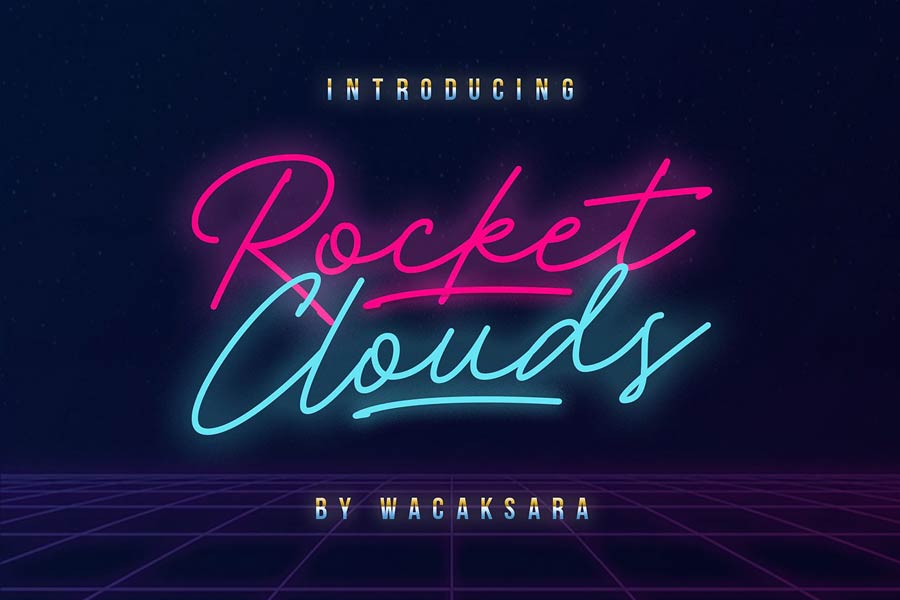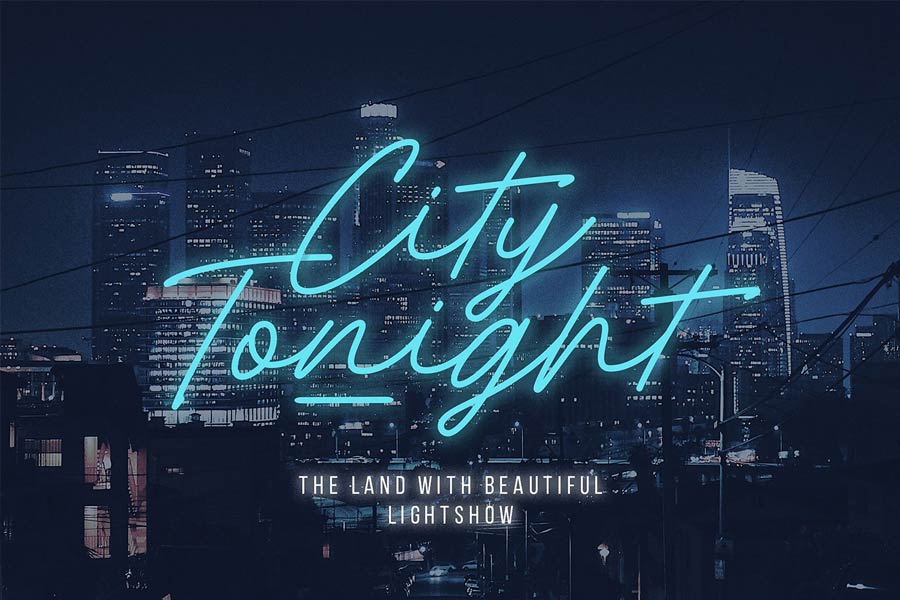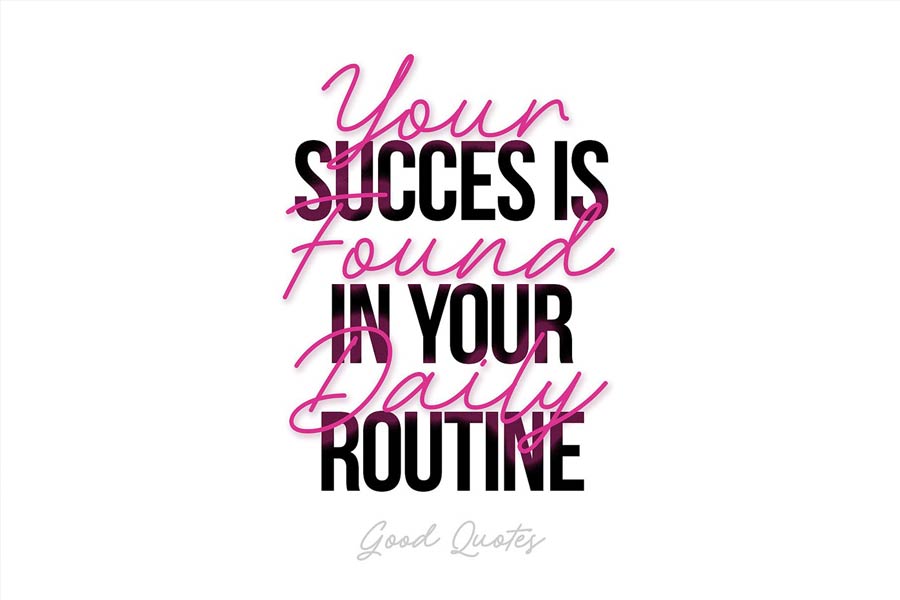
Rocket Clouds is a free font inspired with 80s music and neon lights. It features a fluidic handwriting style, and comes with two styles: a regular and a alternative version for your mix-and-match need.
Rocket Clouds works great in label and branding designs, also a great choice for accent fonts for typographic posters. It’s free for personal use only.
- Designer: Wacaksara Co.
- Styles: 2 (One regular and one alternate)
- Category: Script